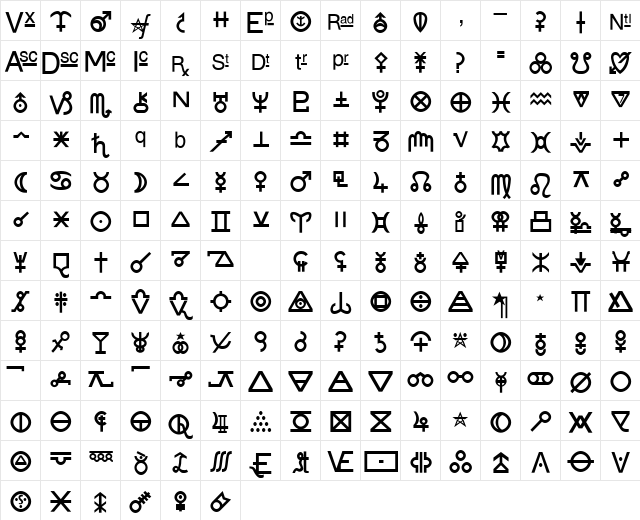
StarFont Sans Regular
Design Context for StarFont Sans Typeface
StarFont Sans takes a measured approach to typography — its balanced proportions and neutral character make it a reliable workhorse for both digital and print work.